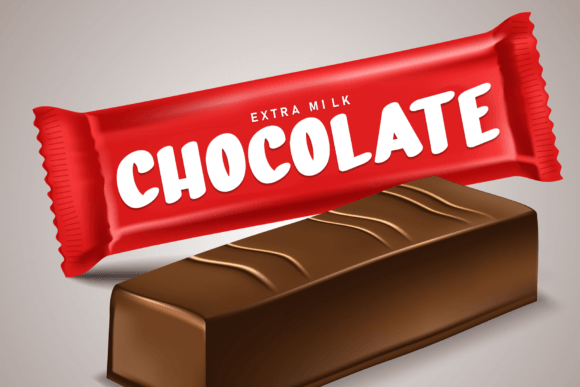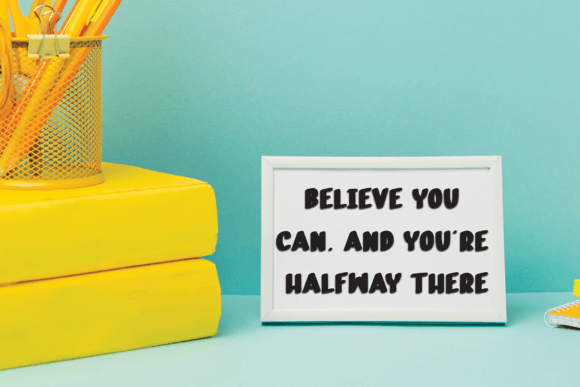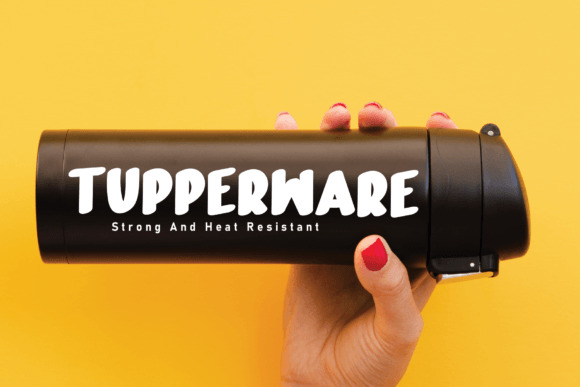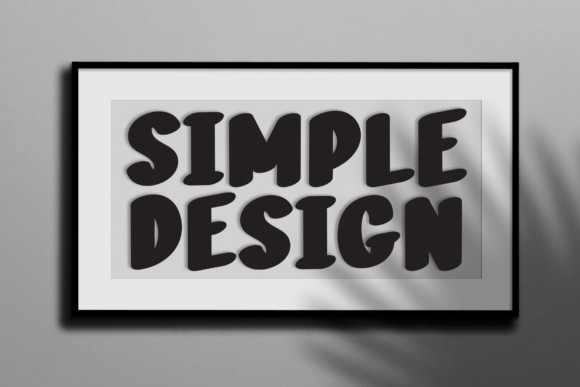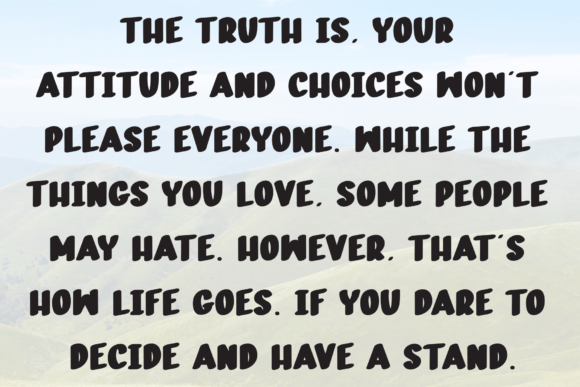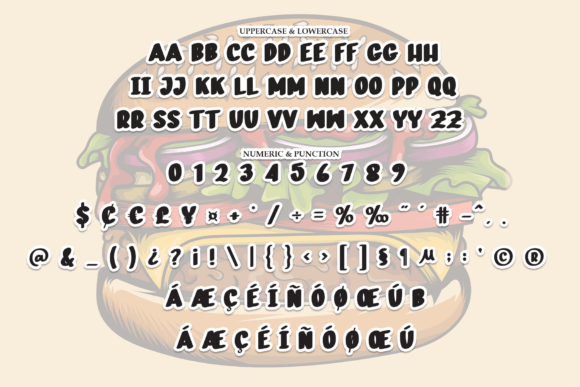
Hamburger Font: Adding a Sweet and Friendly Touch to Your Designs
Are you looking for a font that can add a playful and charming touch to your designs? Look no further than the Hamburger font! This sweet and friendly handwritten font is perfect for creating fun and eye-catching designs that are sure to capture the attention of your audience. In this article, we’ll take a closer look at the Hamburger font, its features, and how you can use it to elevate your designs.
What is Hamburger Font?
Hamburger font is a fresh and cute handwritten font that is ideal for writing wedding invitations, cards, or any other design that might need a fun touch. Its sweet and friendly style makes it perfect for designs that require a personal and approachable feel. Whether you’re a designer, crafter, or DIY enthusiast, this font is sure to become a favorite in your collection.
Key Features of Hamburger Font
- Handwritten style: Hamburger font has a beautiful handwritten style that gives it a personal and unique touch.
- Sweet and friendly: The font’s sweet and friendly style makes it perfect for designs that require a playful and approachable feel.
- Fresh and cute: The font’s fresh and cute style makes it ideal for designs that require a youthful and energetic feel.
- Versatile: Hamburger font can be used for a wide range of designs, from wedding invitations and cards to posters and social media graphics.
How to Use Hamburger Font in Your Designs
Hamburger font is easy to use and can be incorporated into your designs in a variety of ways. Here are a few ideas to get you started:
- Wedding invitations: Use Hamburger font to create beautiful and unique wedding invitations that set the tone for a special day.
- Cards and stationery: Add a personal touch to your cards and stationery with Hamburger font.
- Posters and flyers: Use Hamburger font to create eye-catching posters and flyers that grab attention.
- Social media graphics: Add a playful touch to your social media graphics with Hamburger font.
Tips for Using Hamburger Font Effectively
Here are a few tips for using Hamburger font effectively in your designs:
- Use it sparingly: Hamburger font is best used sparingly to add a touch of personality to your designs. Avoid using it for long blocks of text.
- Pair it with other fonts: Hamburger font pairs well with other fonts, such as serif and sans-serif fonts. Experiment with different font combinations to find the perfect look for your design.
- Adjust the size and color: Adjust the size and color of Hamburger font to fit your design. A smaller size and a bright color can add a playful touch, while a larger size and a bold color can make a statement.
Hamburger font is a sweet and friendly handwritten font that is perfect for adding a playful and charming touch to your designs. Its fresh and cute style makes it ideal for wedding invitations, cards, and other designs that require a personal and approachable feel. With its versatility and ease of use, Hamburger font is sure to become a favorite in your design collection. So why not give it a try and see how it can elevate your designs?